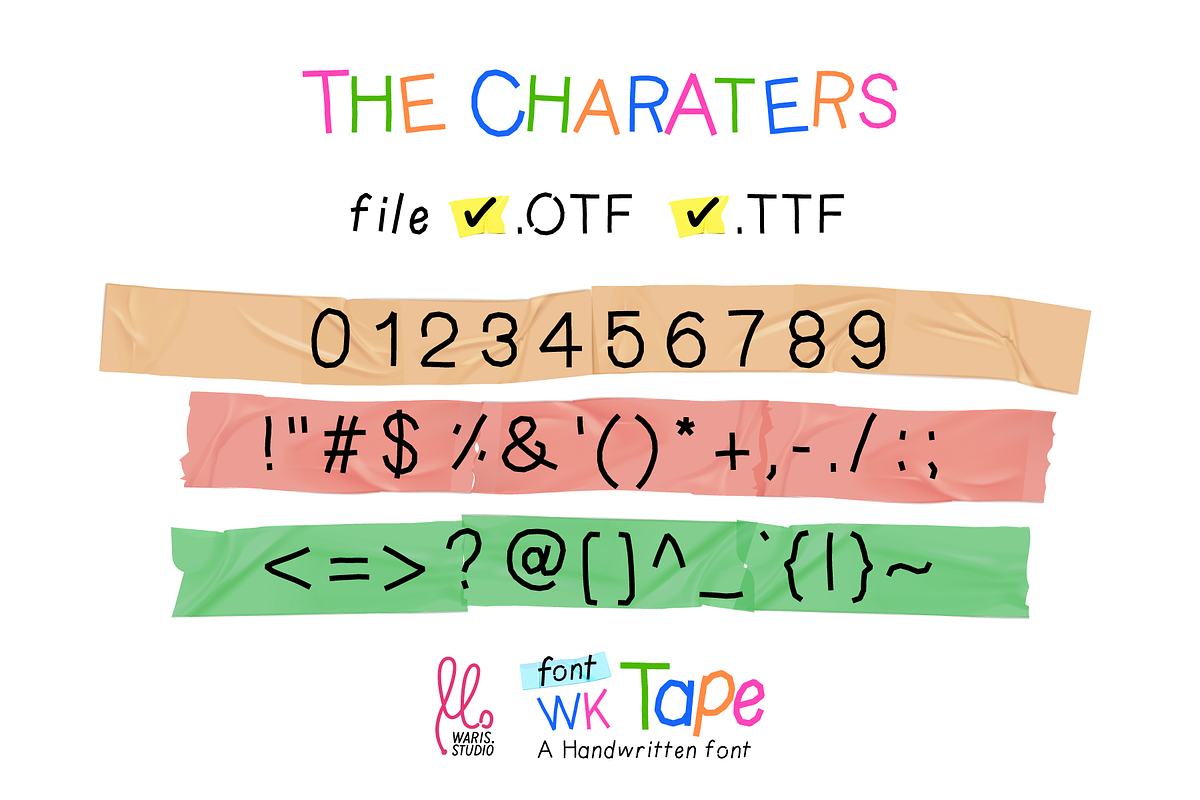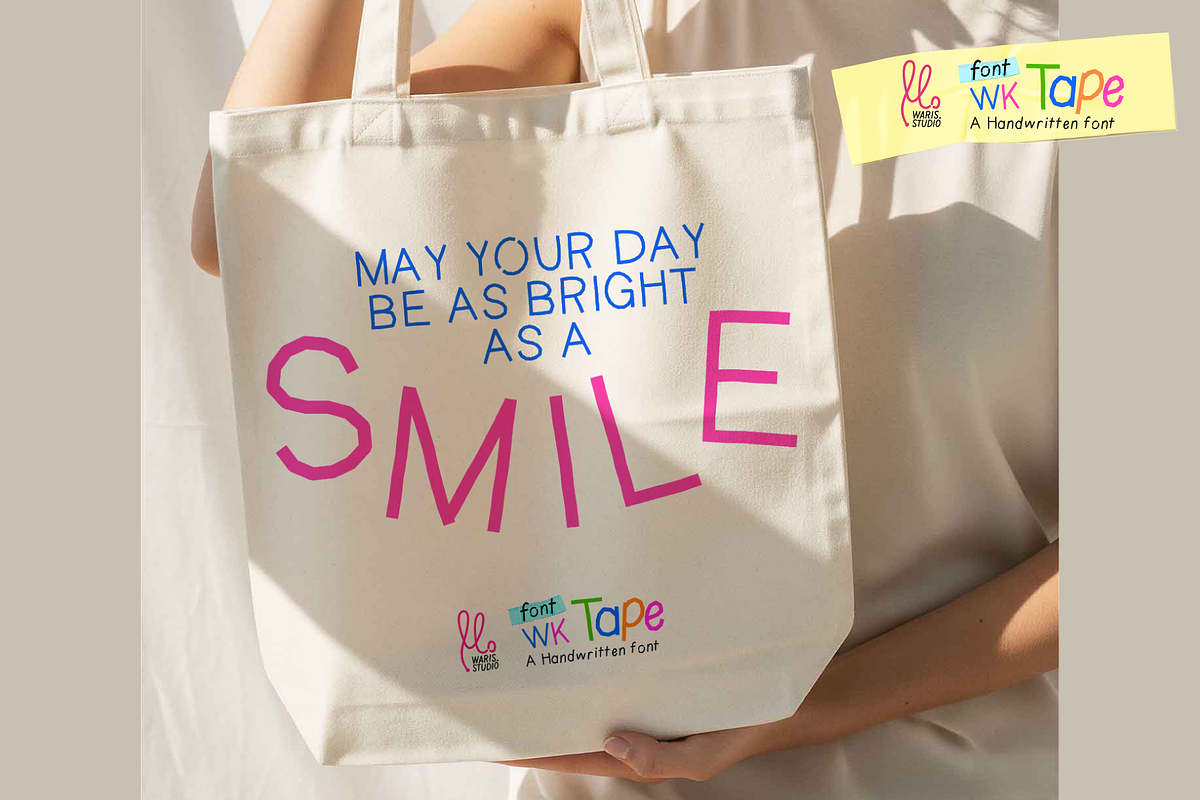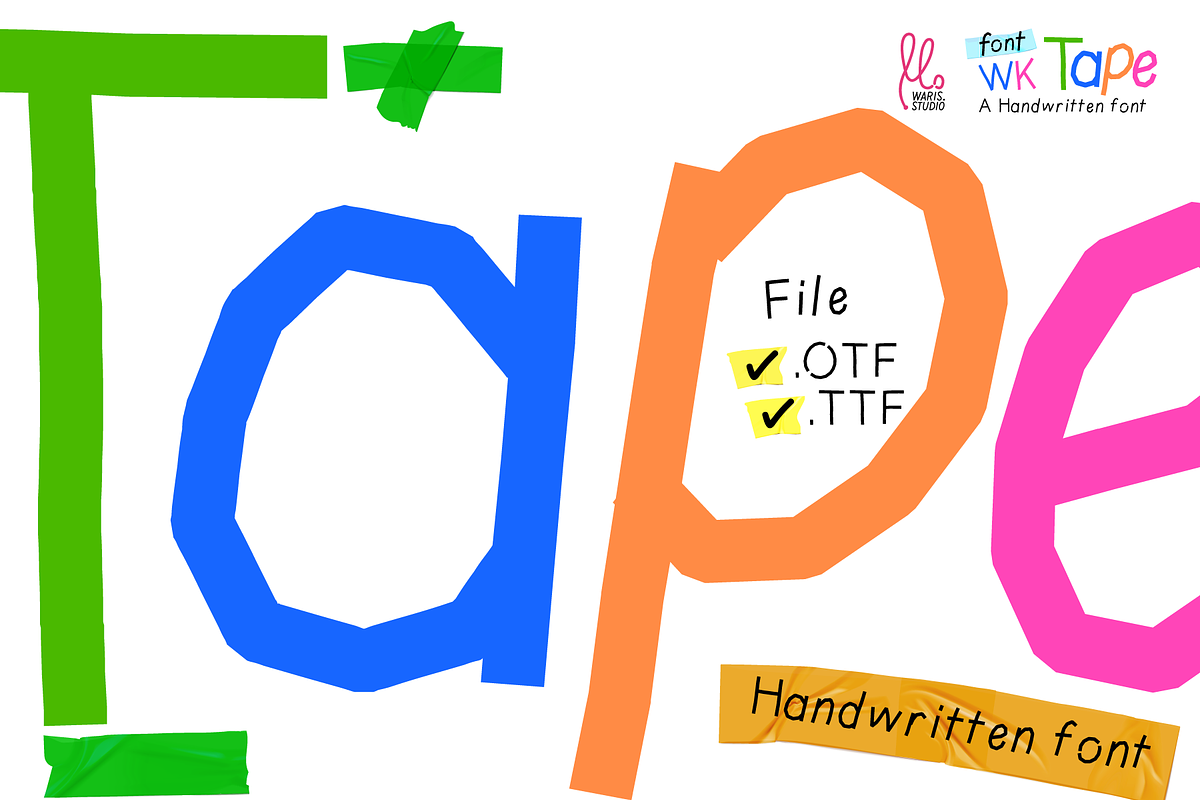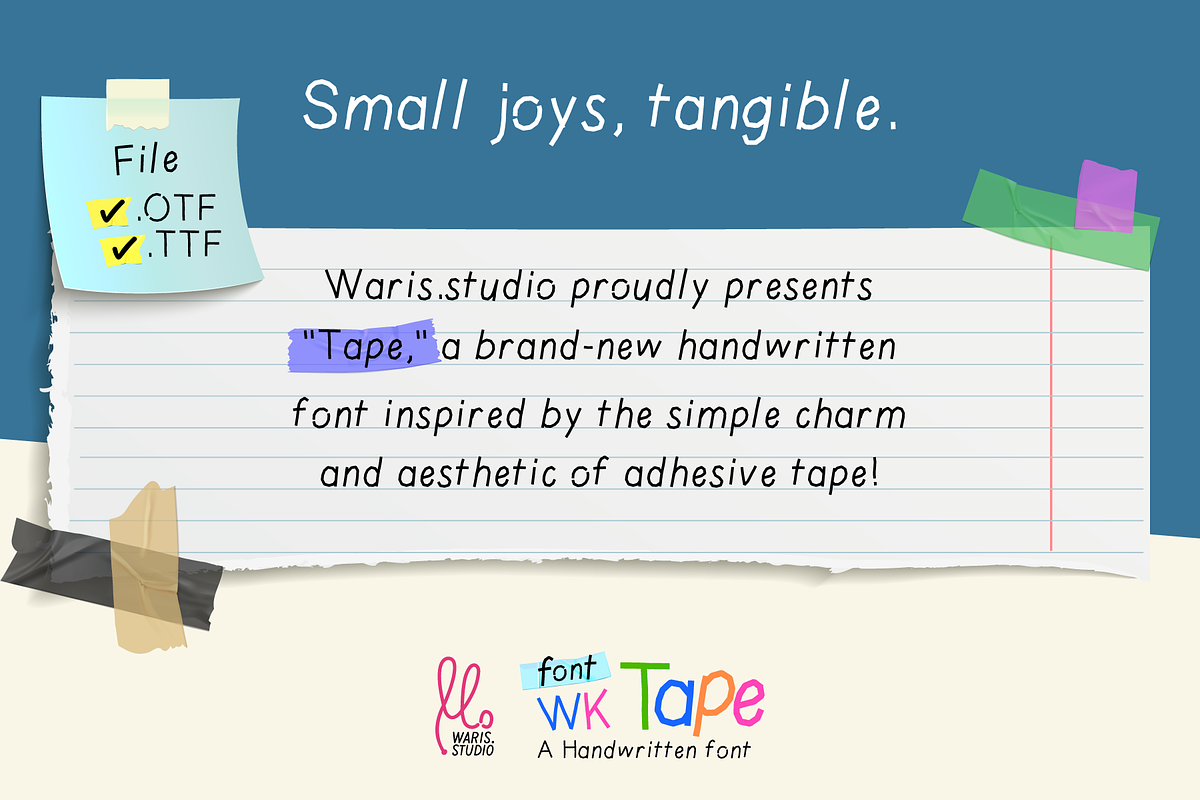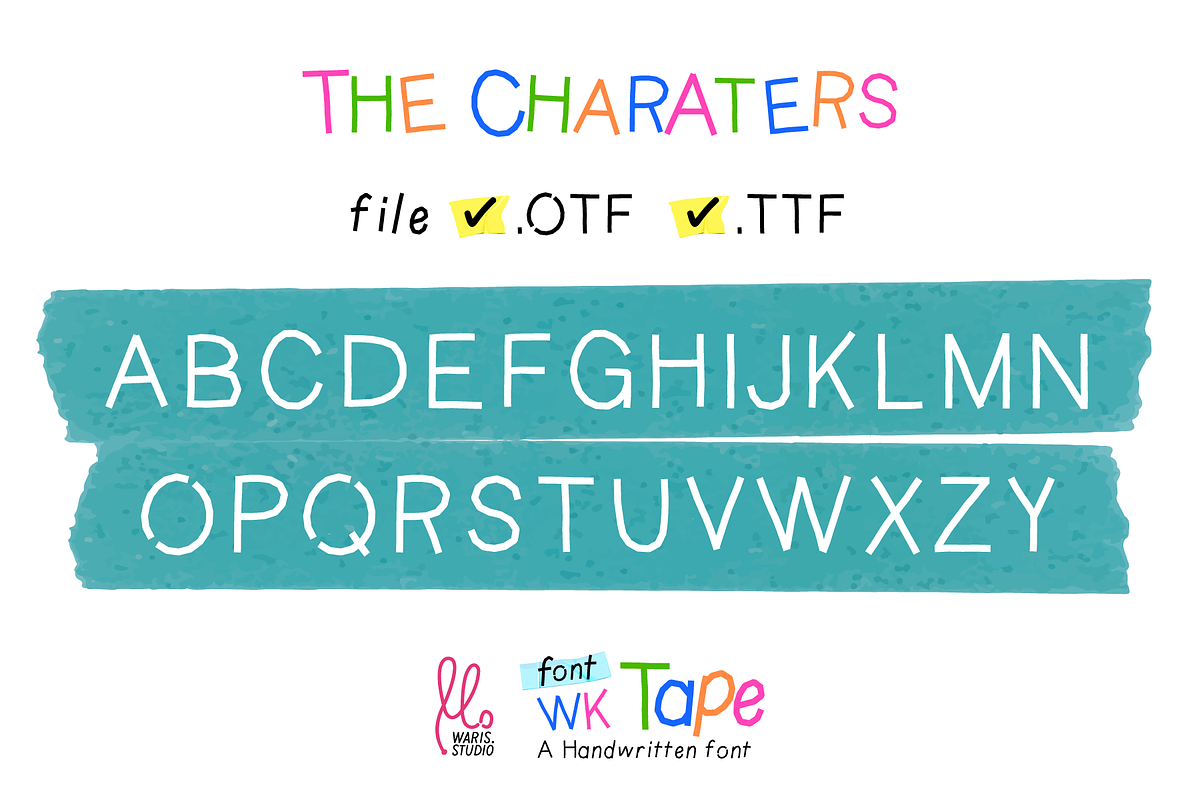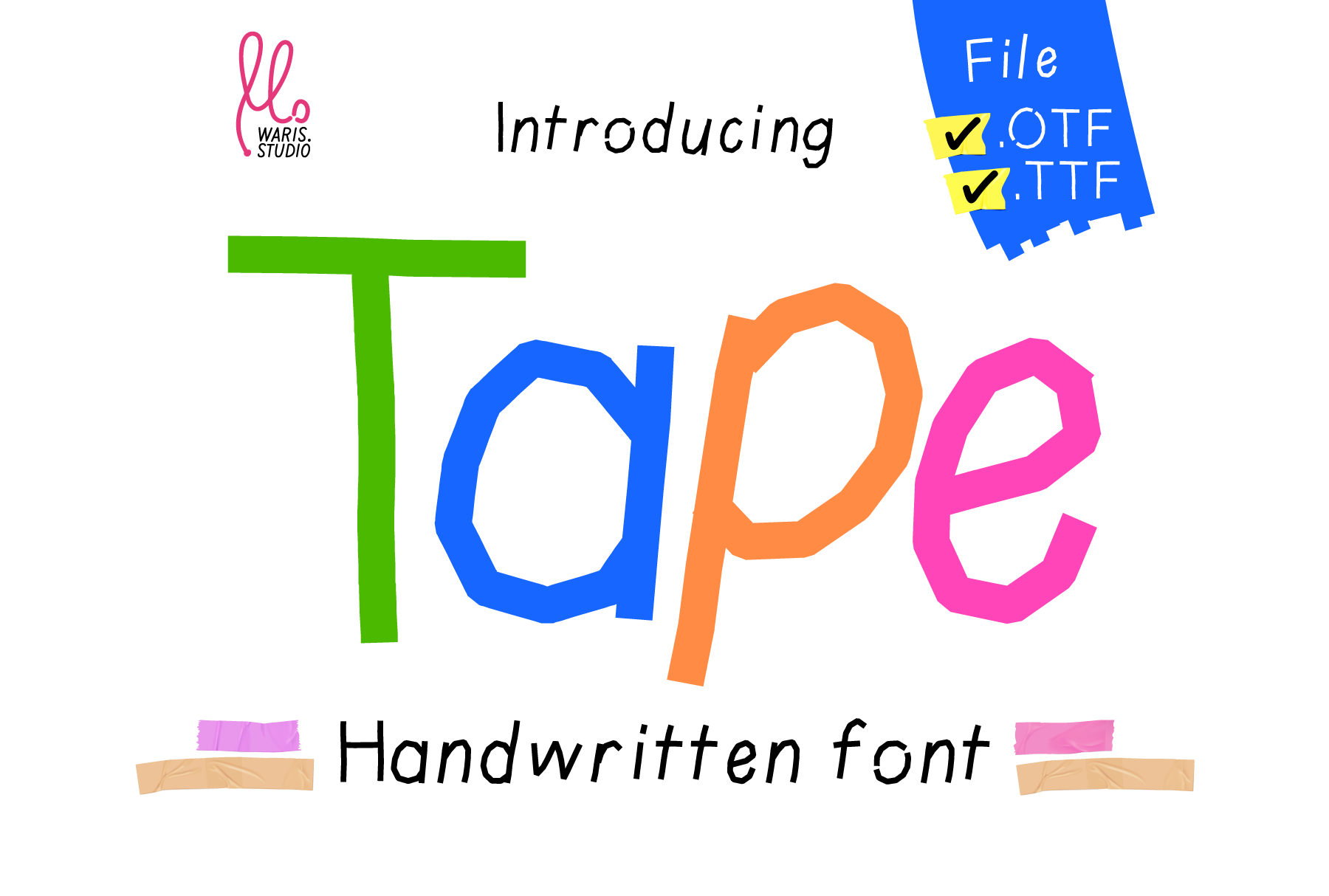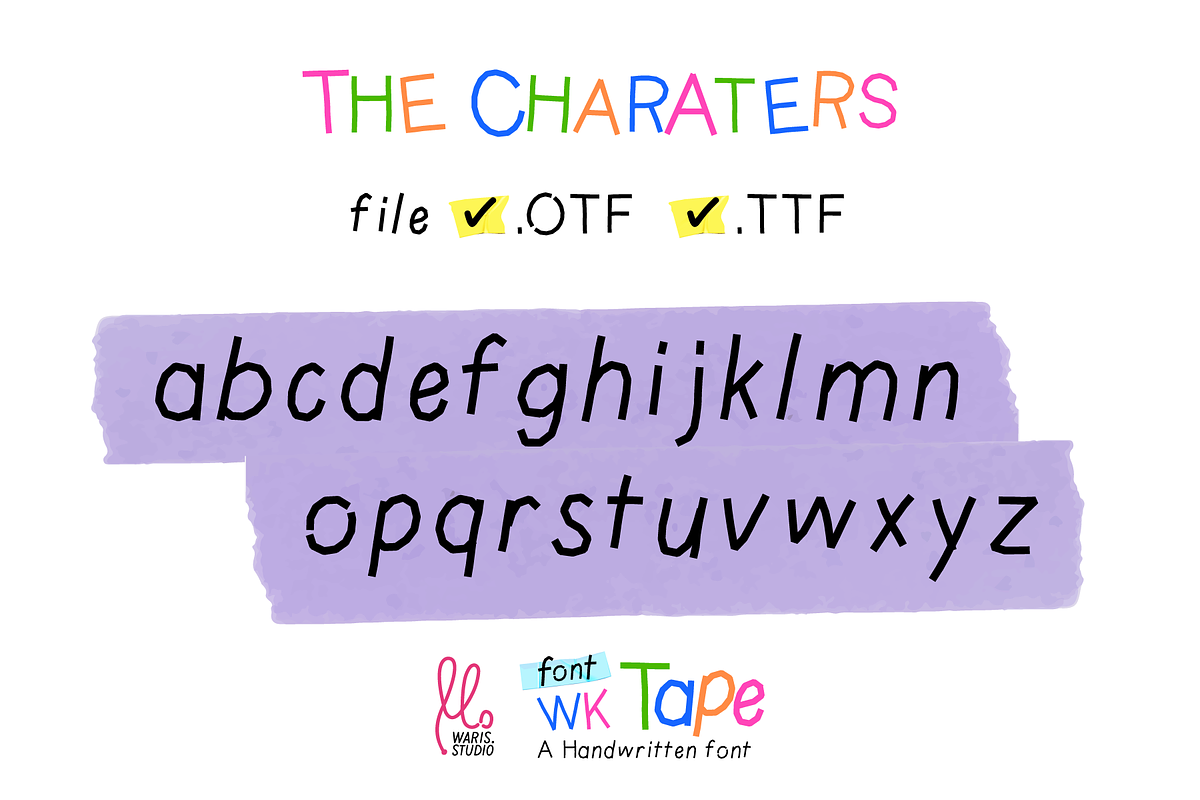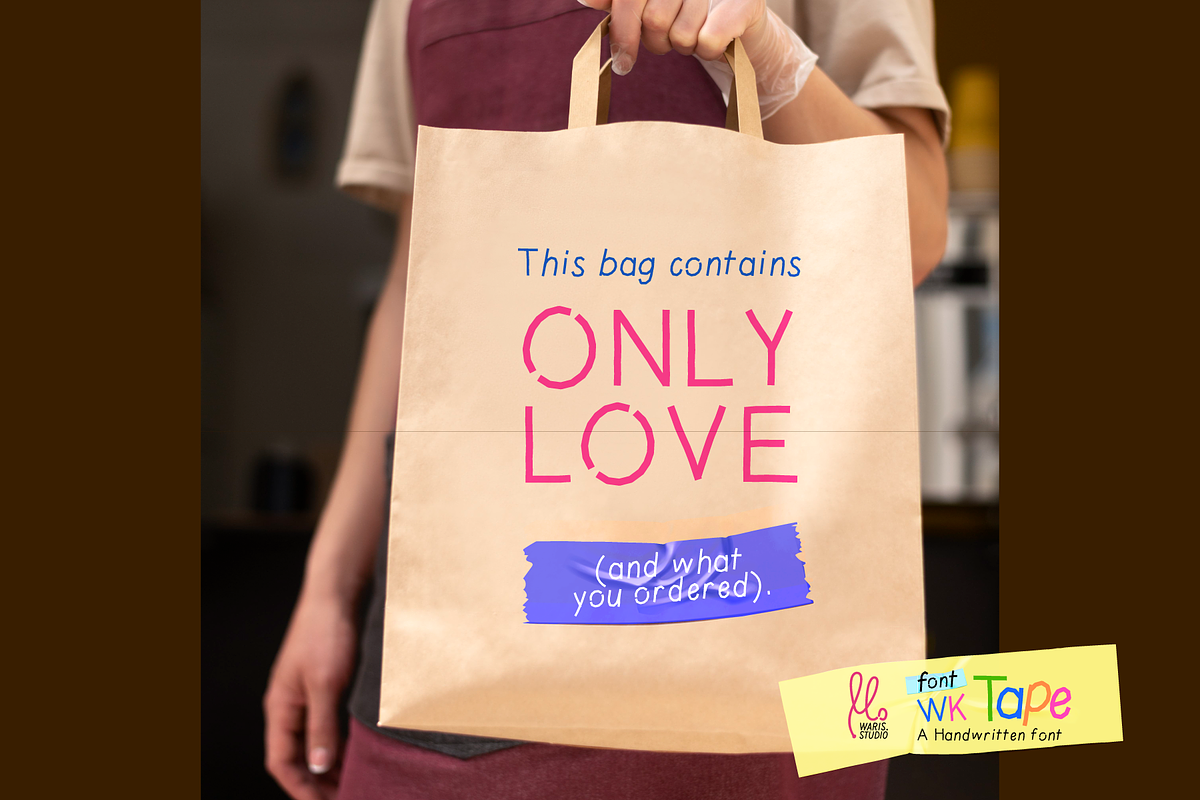
Tape font handwritten font
Waris.studio proudly presents "Tape," a brand-new handwritten font inspired by the simple charm and aesthetic of adhesive tape!
With characters that appear cut and pasted from paper and multi-colored tape, "Tape" offers a fun, friendly, and uniquely distinctive feel. It's perfectly suited for designs that embrace lovable imperfections, whether for DIY-themed projects, personal blogs, posters, or social media content.
Get ready for endless creativity with "Tape," the font that will make your work stand out from the rest!